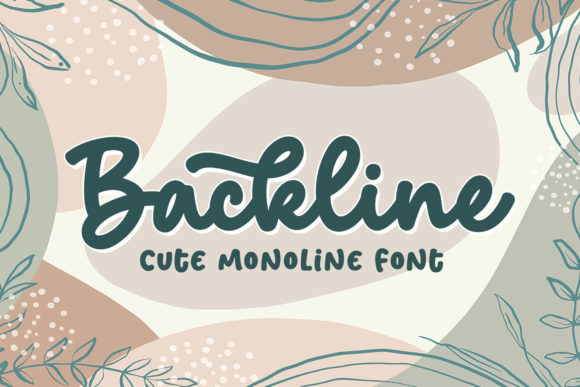
Introducing the Backline Font – Your Gateway to a Handcrafted Charm in Digital Designs!
Embrace the beauty of handwritten charm with Backline Font, a captivating script font family designed to infuse your digital creations with a touch of authenticity and realism. Crafted with meticulous care by Subectype, Backline embodies the essence of handwritten elegance, making it the perfect choice for chalkboard quotes, teaching materials, and countless other projects.
Step into a world where your words come alive, carrying the warmth and intimacy of human touch. Backline's charmingly imperfect strokes, reminiscent of a skilled hand guiding a pen across paper, add a personal touch to your designs, drawing viewers in with their genuine appeal.
With Backline as your creative companion, transform ordinary text into captivating works of art. Its carefully crafted characters, each possessing unique variations, evoke a sense of authenticity that captivates audiences. Unleash your creativity and watch as Backline transforms your digital designs into captivating visual feasts.
Transport yourself to a world where imagination thrives and expression knows no bounds. The Backline Font invites you to explore a realm of endless possibilities, where your ideas take shape with an artistic flair. Whether you're a seasoned designer or just starting your creative journey, Backline will guide you towards creating designs that resonate with your audience.
Don't let your designs be confined to the mundane. Embrace the artistry of Backline Font and unlock a world of endless creative possibilities. Let your imagination soar as you craft designs that captivate, inspire, and leave a lasting impression.